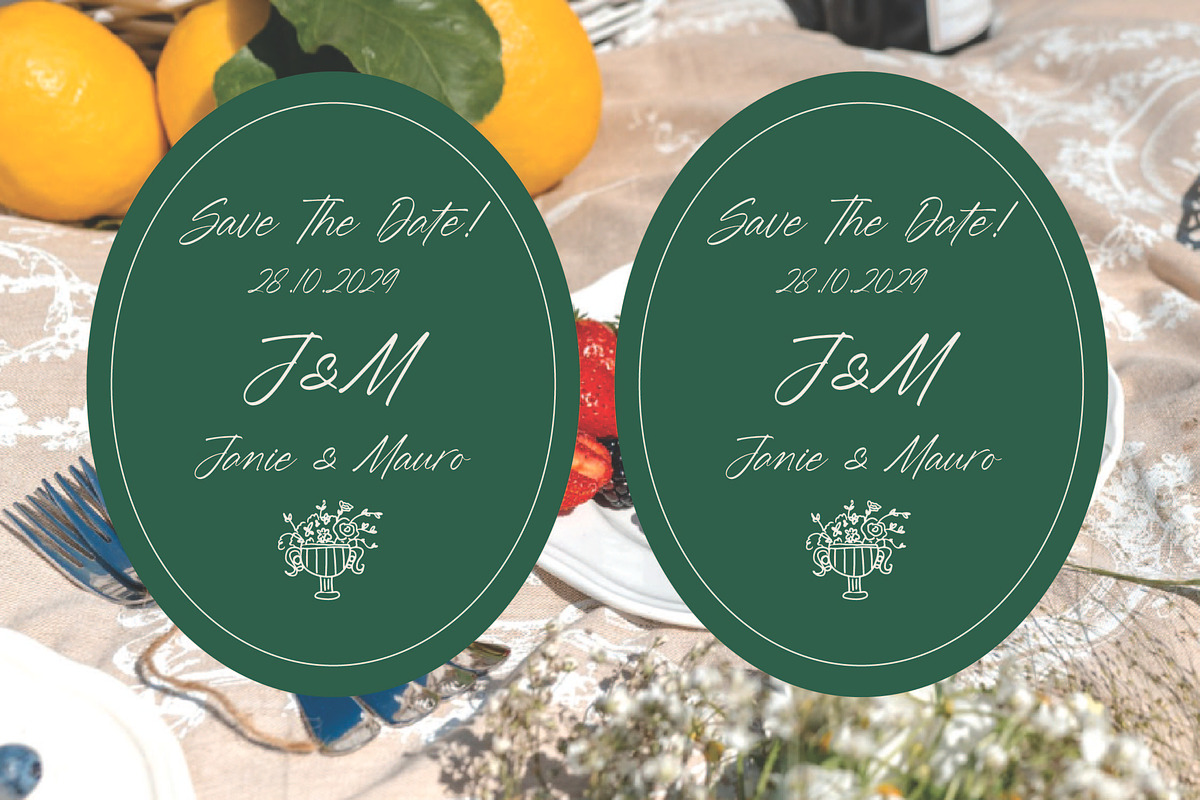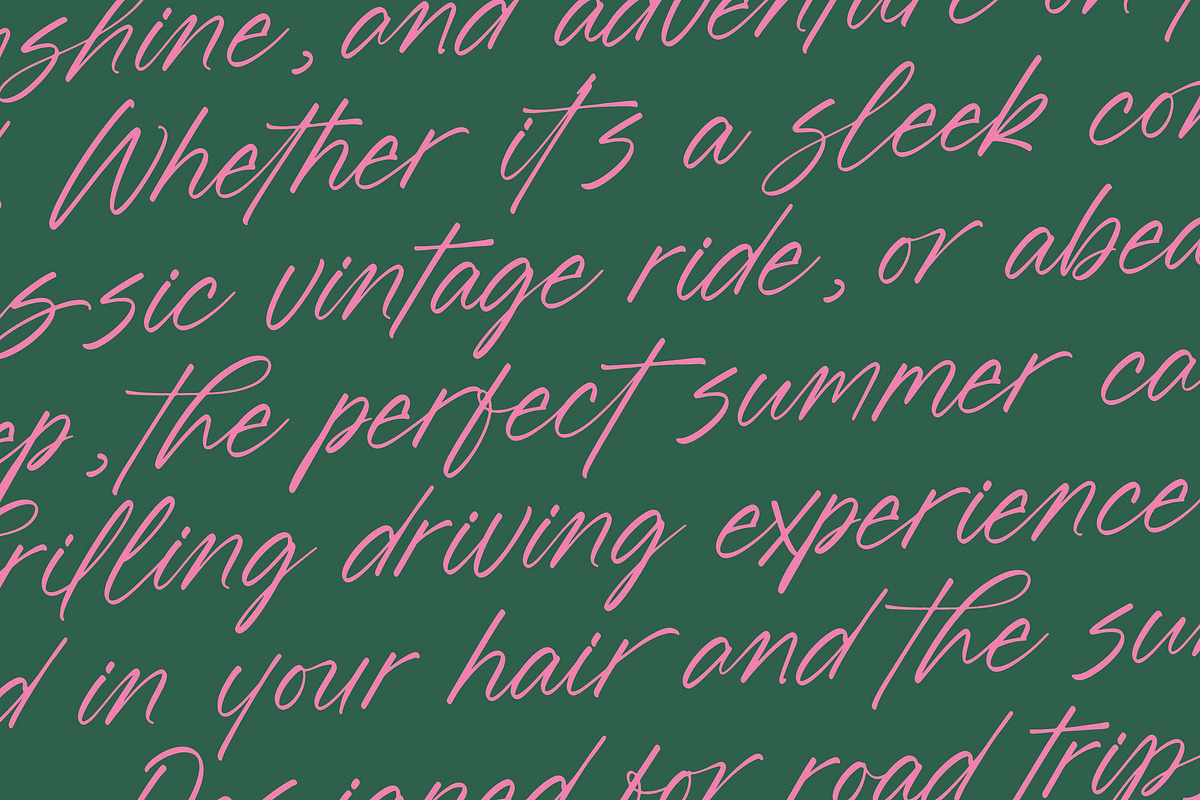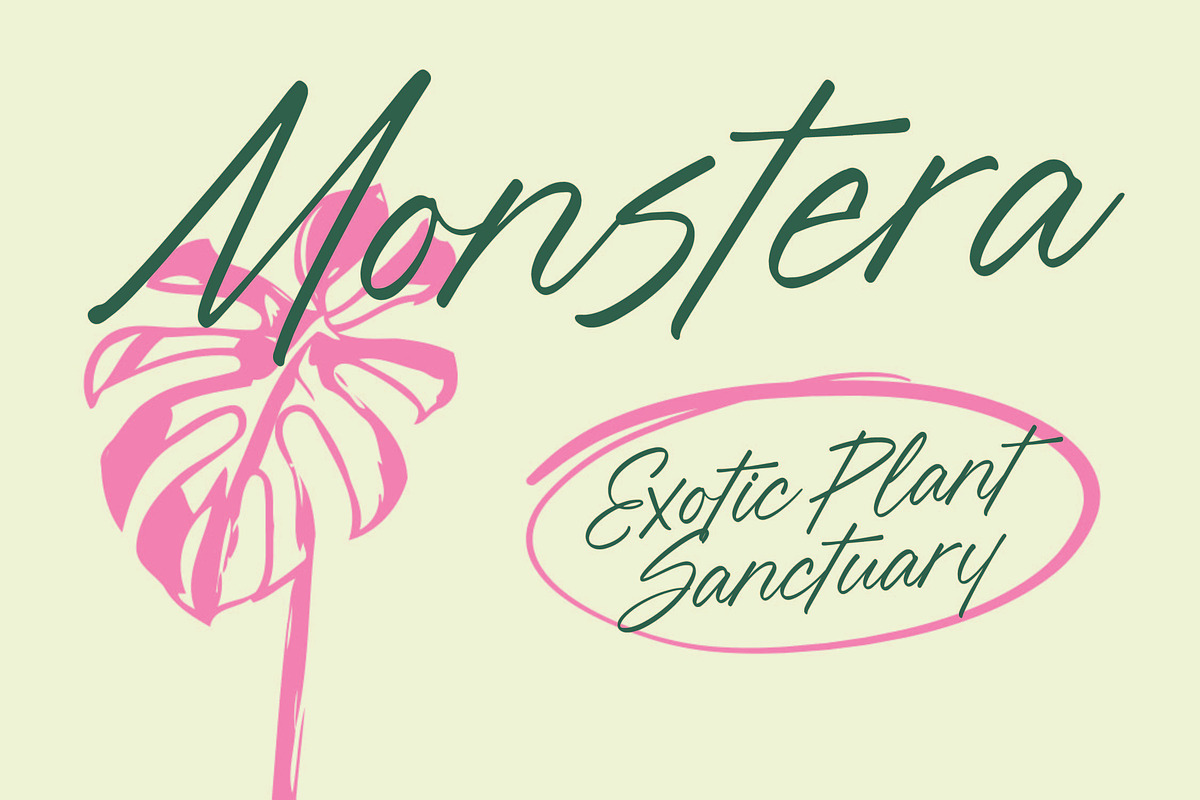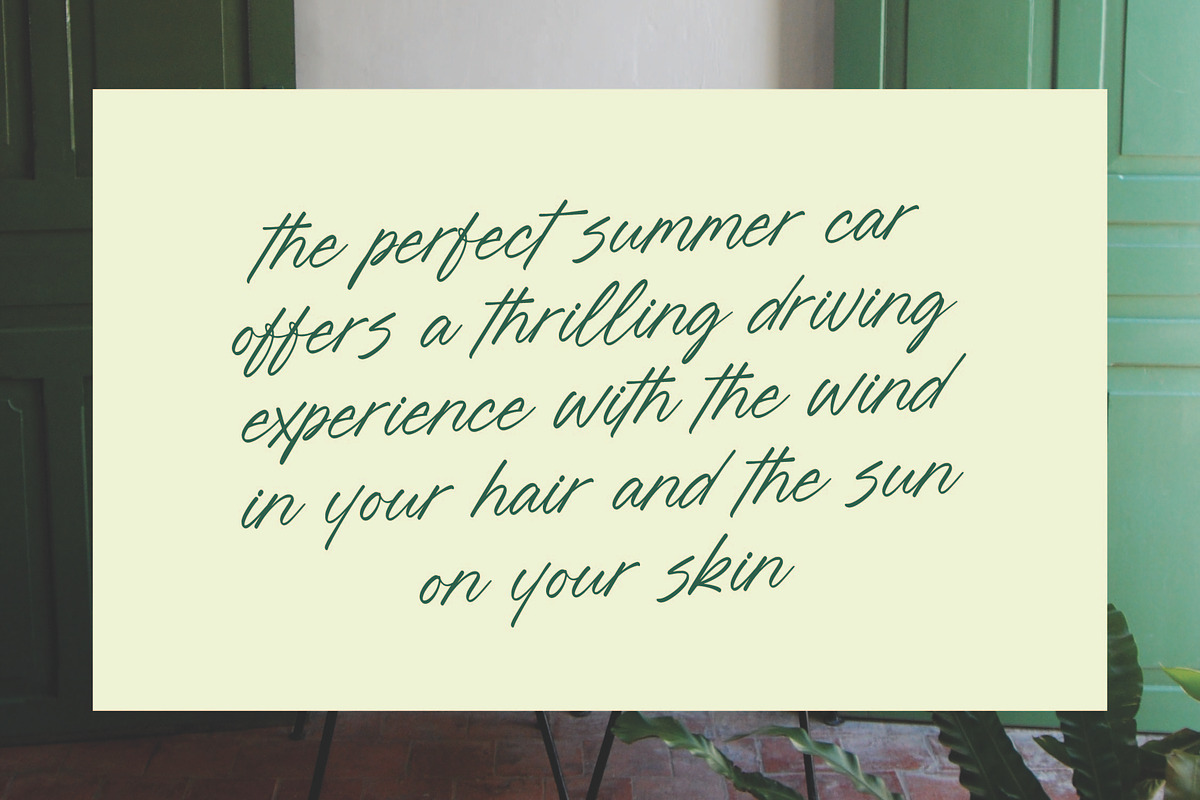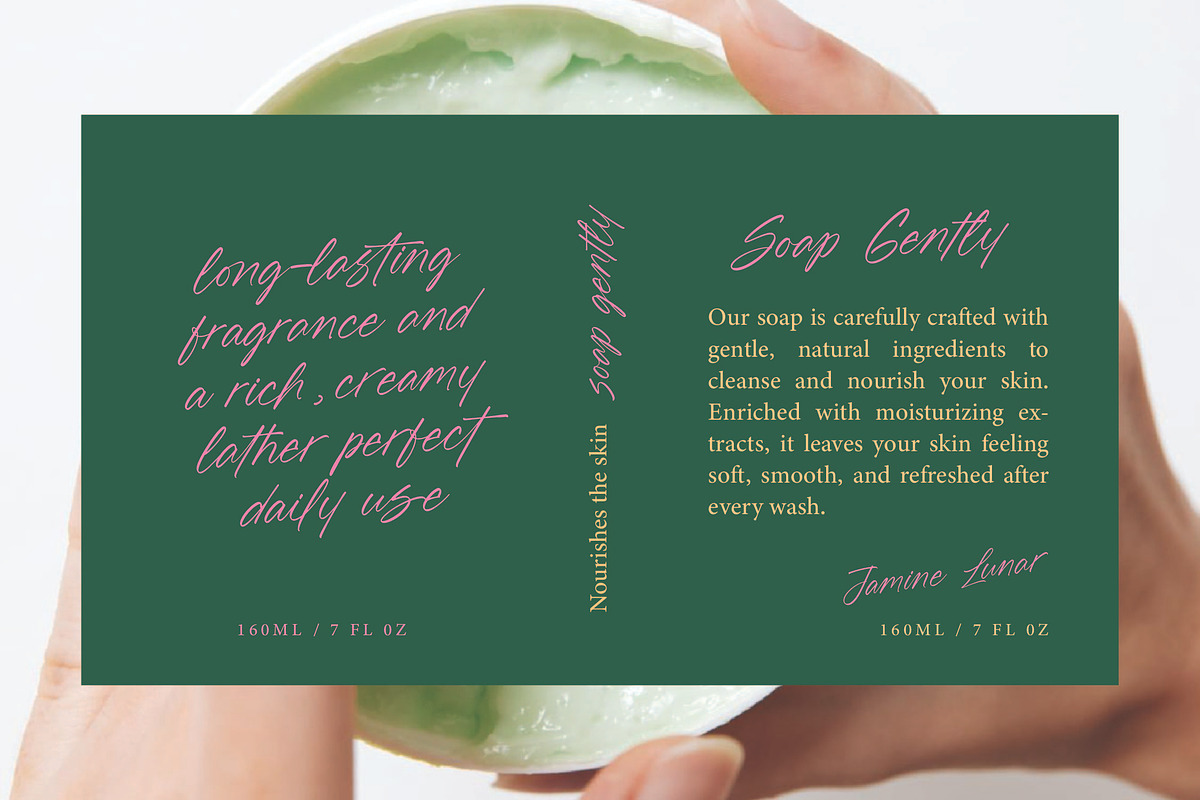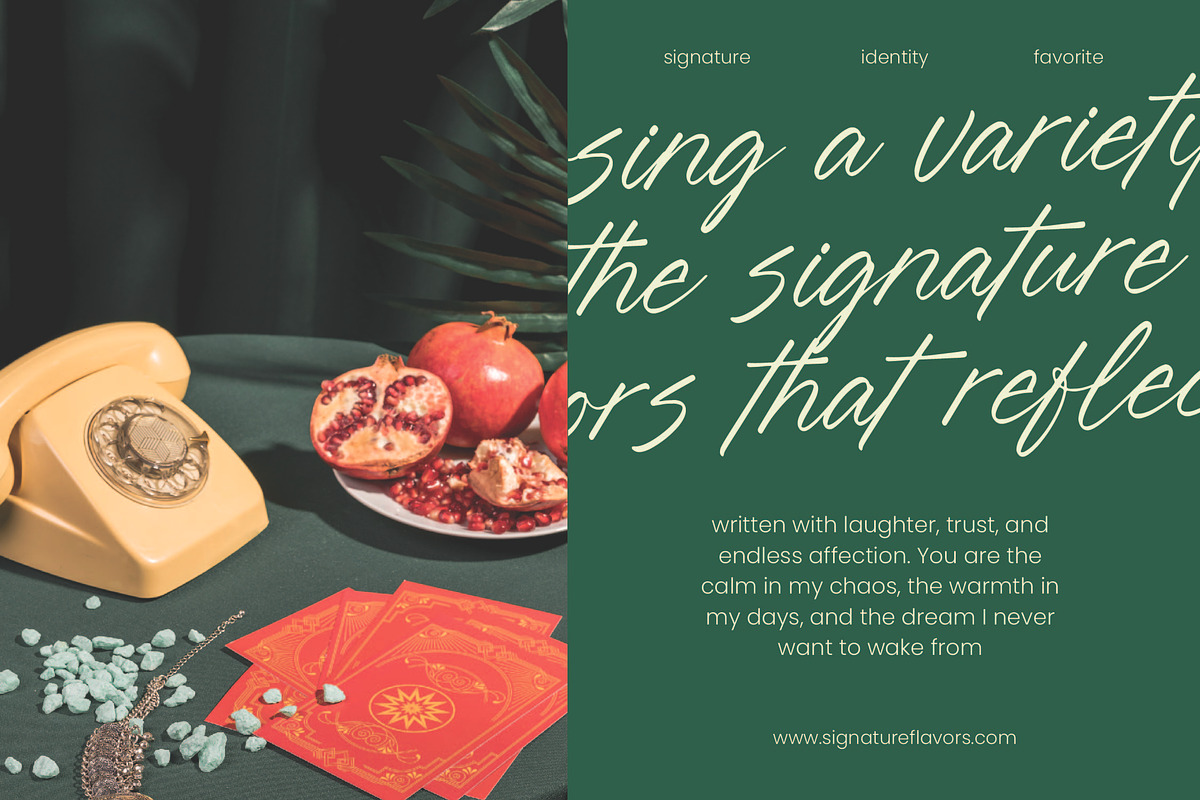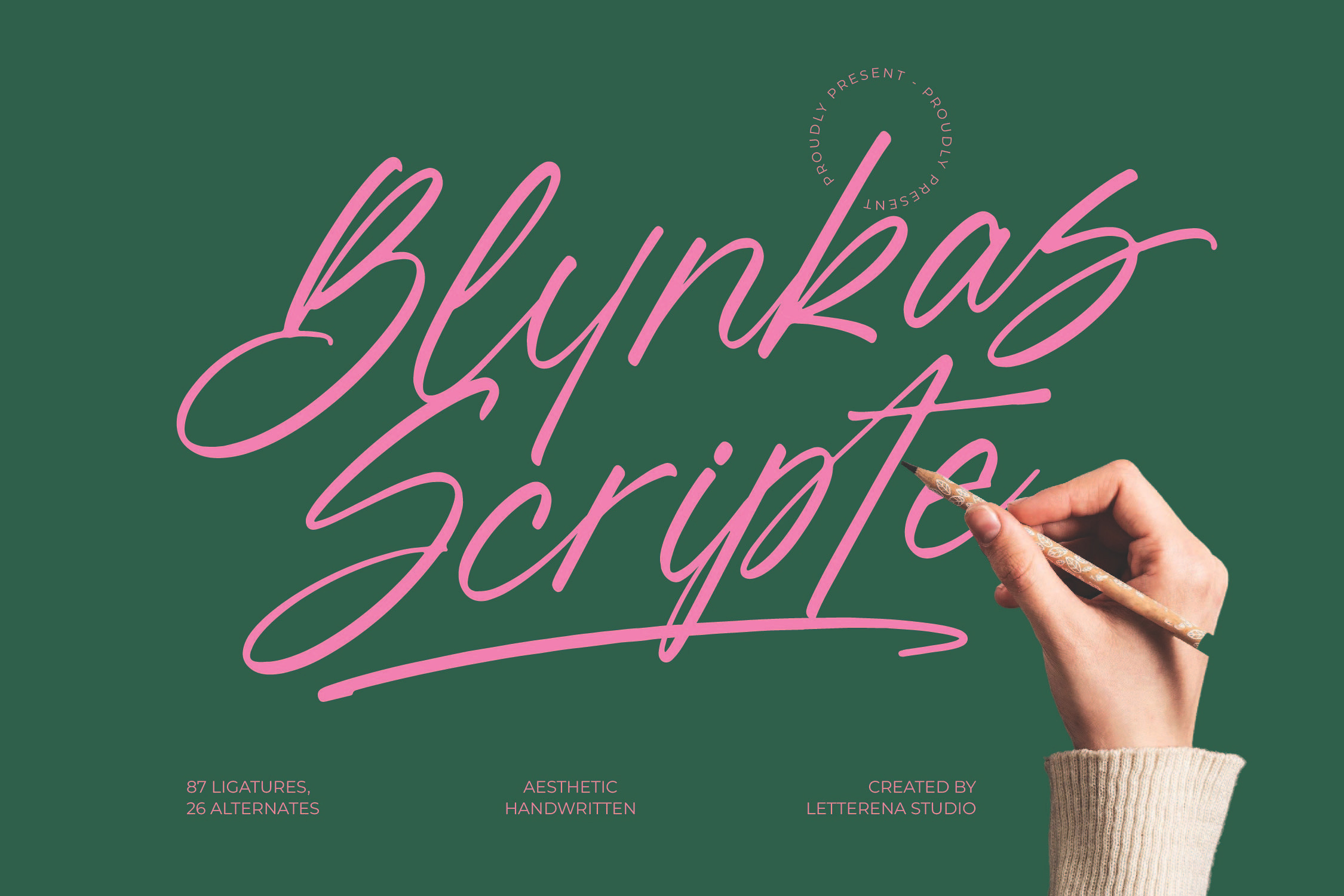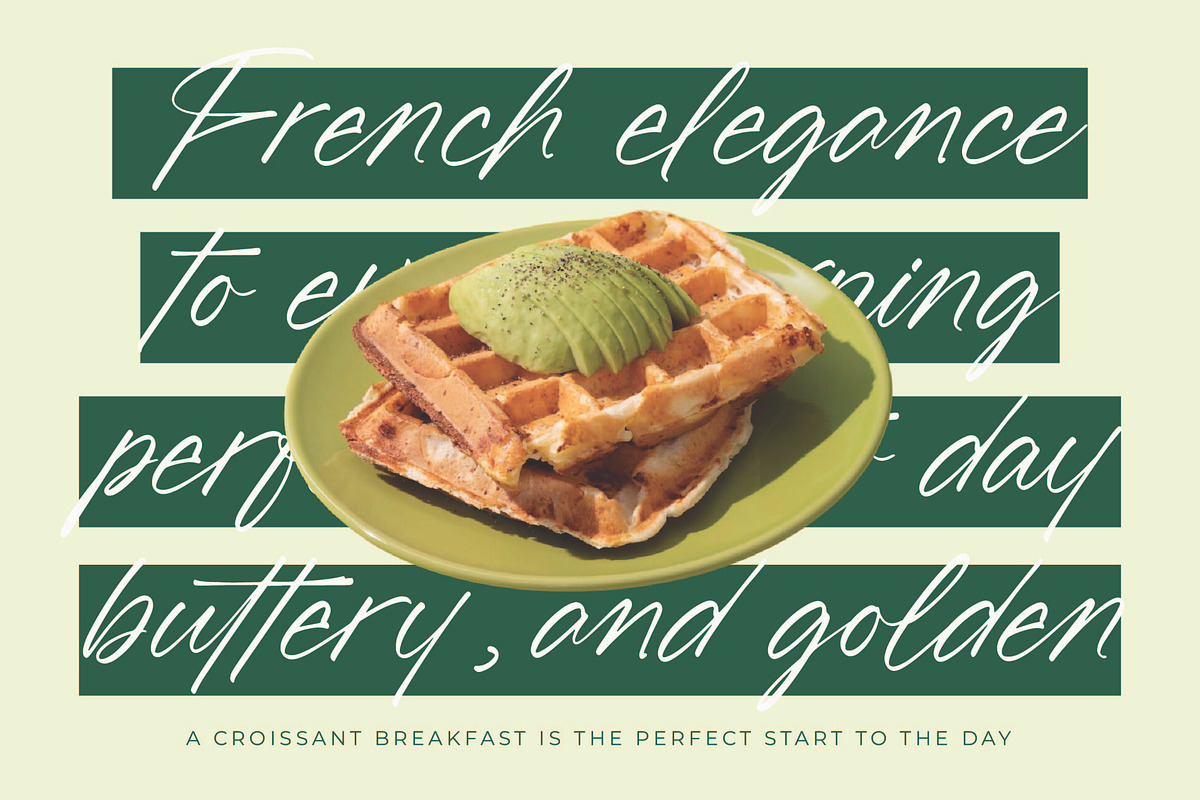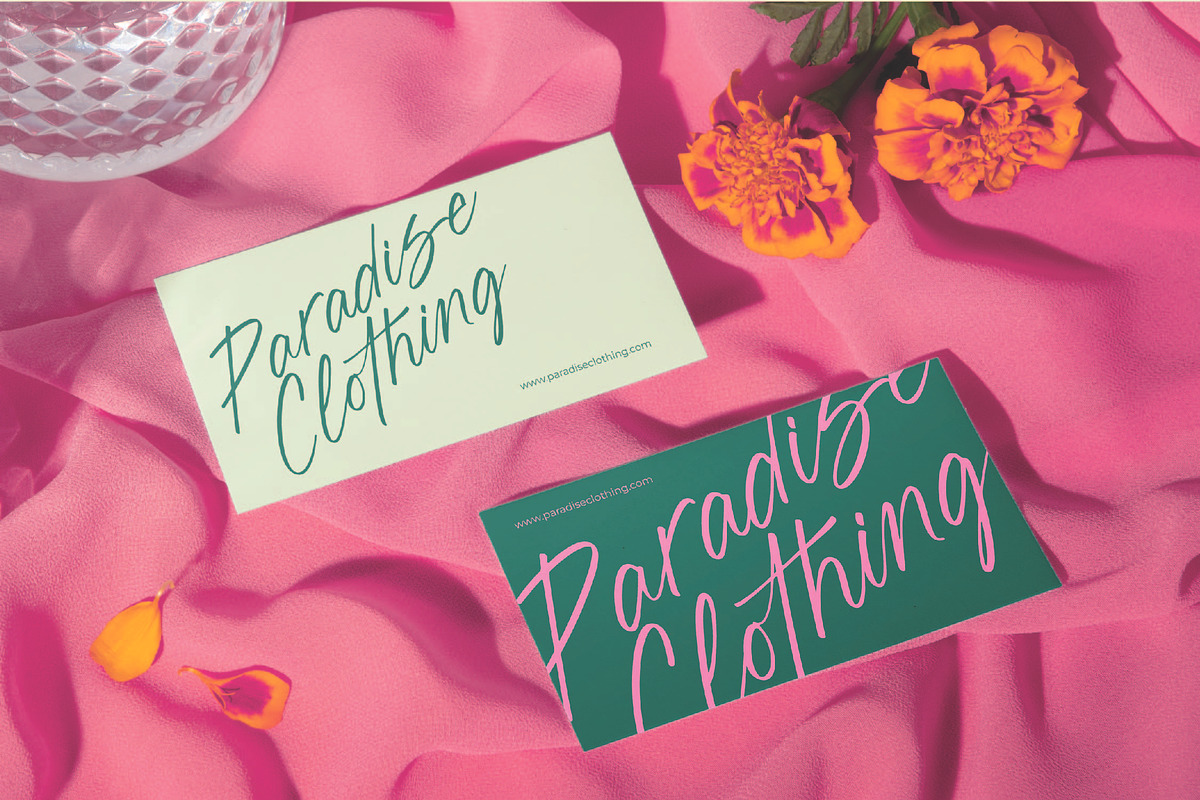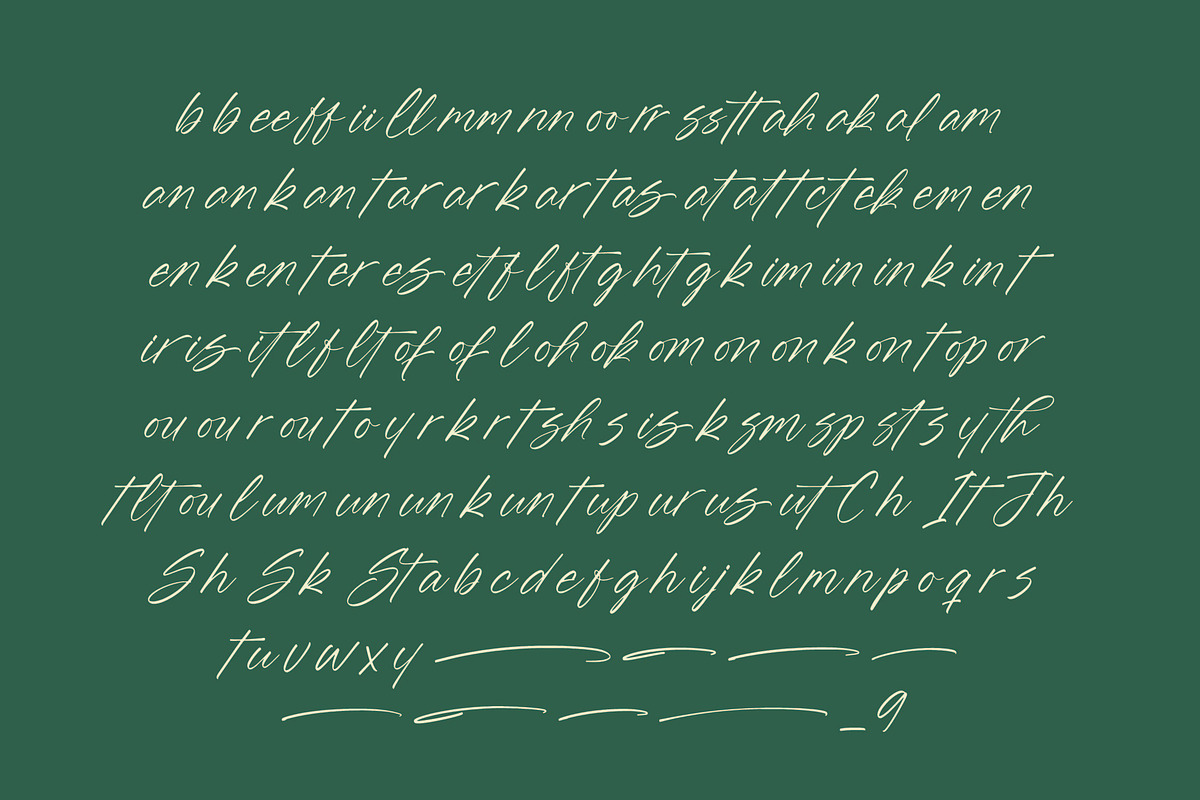
Blynkas Scripte Handwritten Font
Blynkas Scripte - Aesthetic Handwritten Font , Blynkas Scripte is an aesthetic handwritten script font with smooth strokes, expressive curves, and a natural handwritten flow. Designed to bring elegance and personal warmth into any design, this font is perfect for branding, signatures, invitations, packaging, quotes, lifestyle content, and handmade-inspired projects. With 87 ligatures and 26 stylistic alternates, Blynkas Scripte gives you the freedom to create expressive letterforms that feel organic, fluid, and stylish. Every stroke is crafted to look effortlessly handwritten while maintaining strong readability and premium visual appeal.